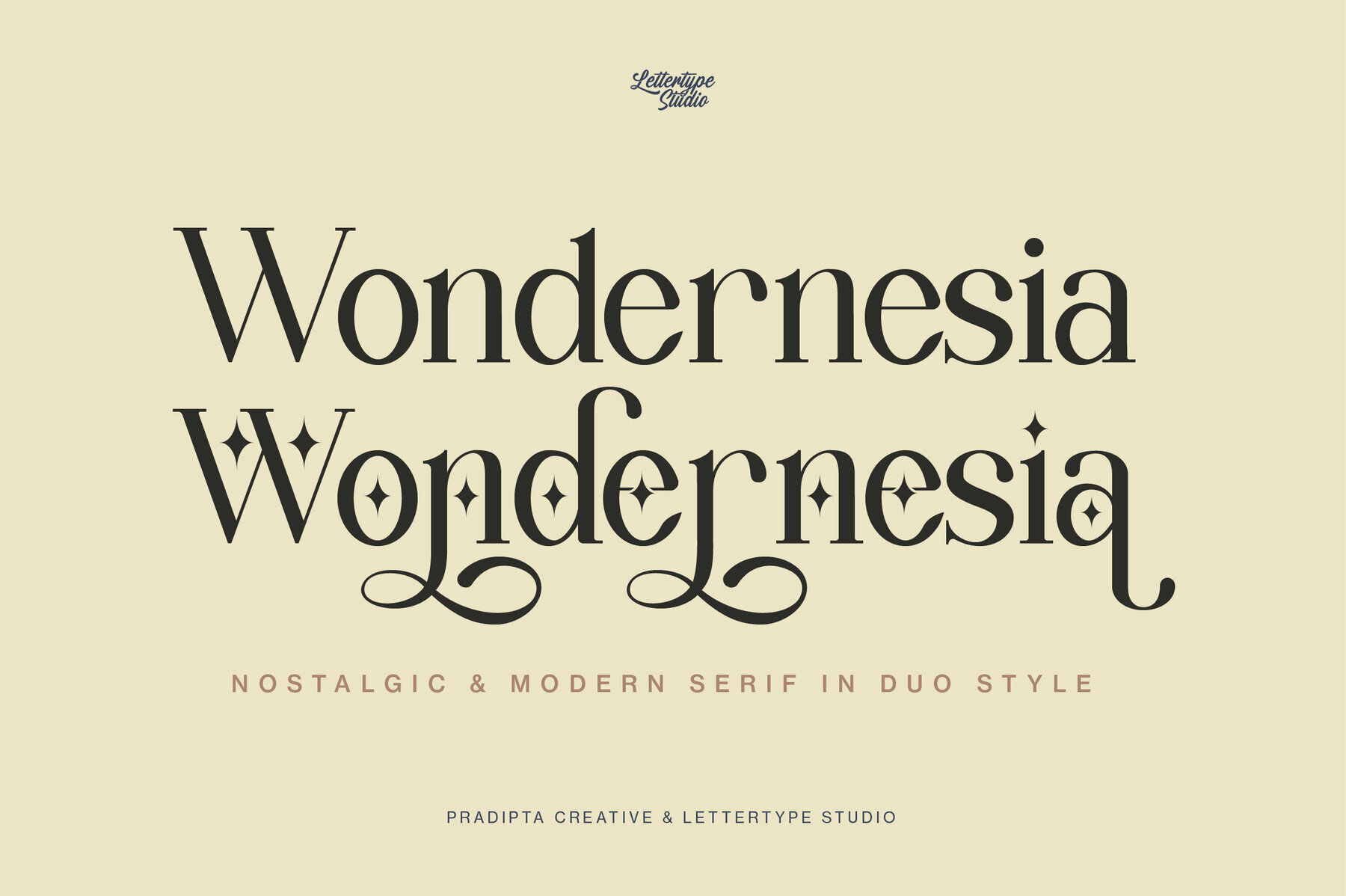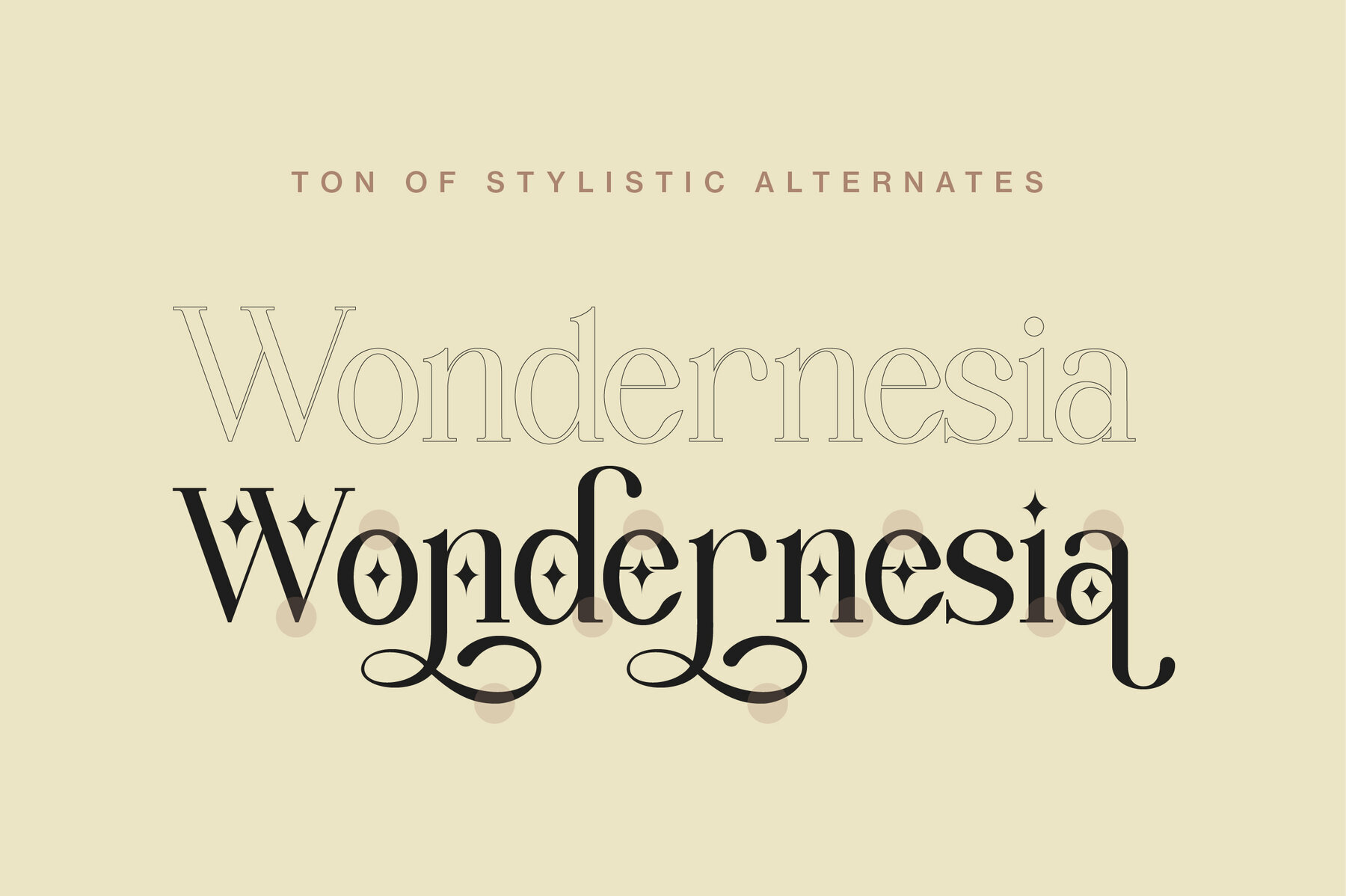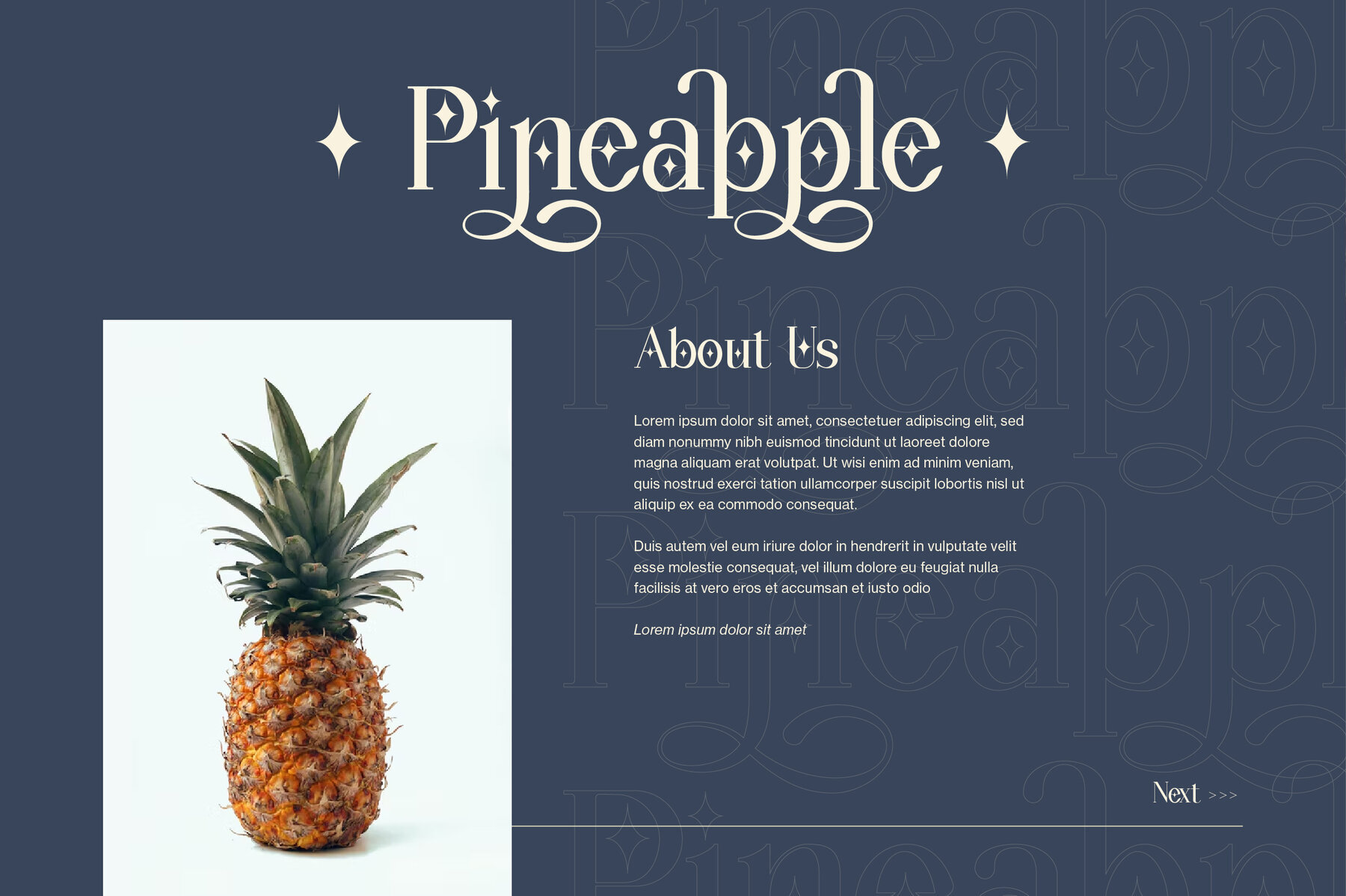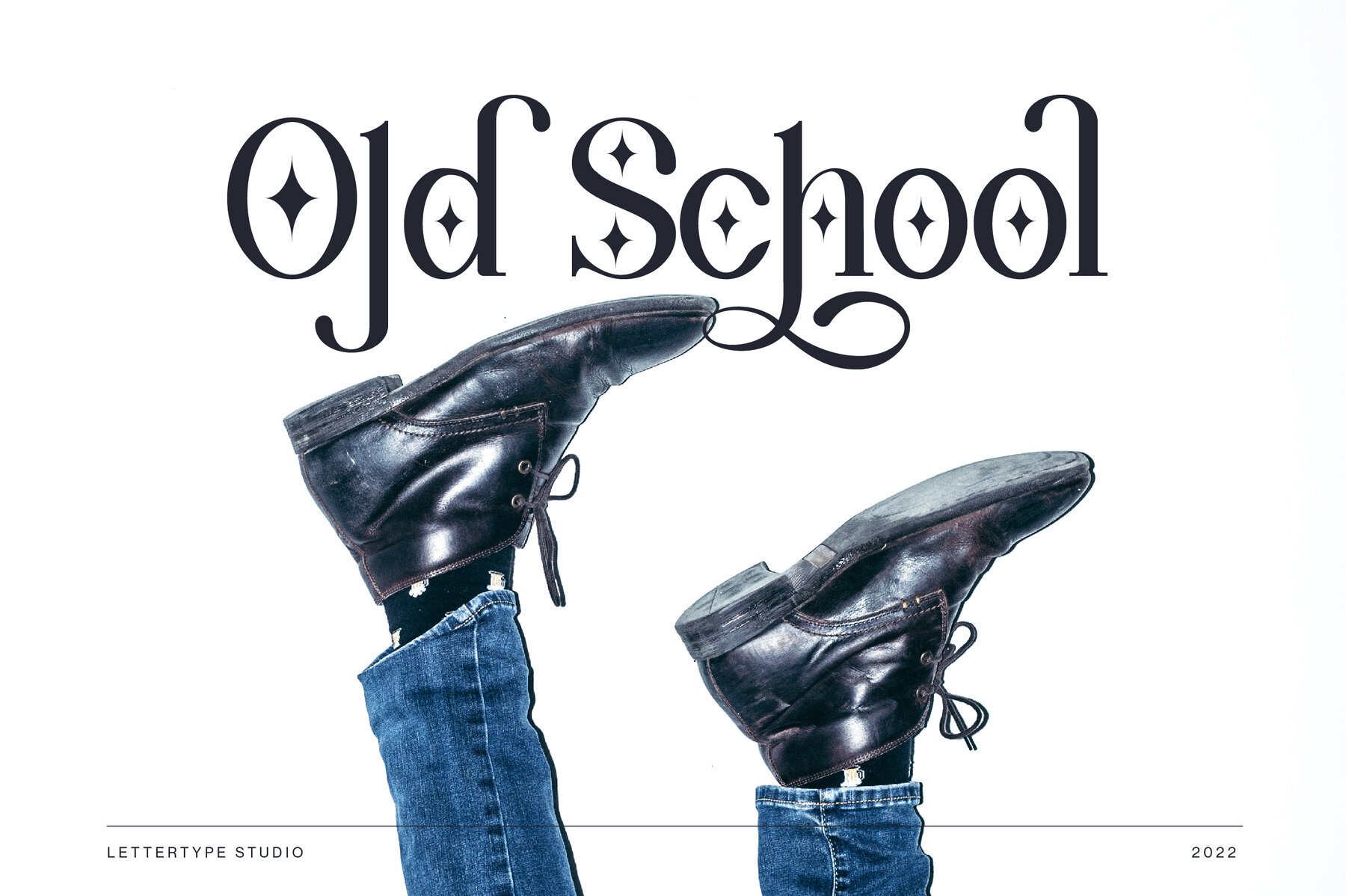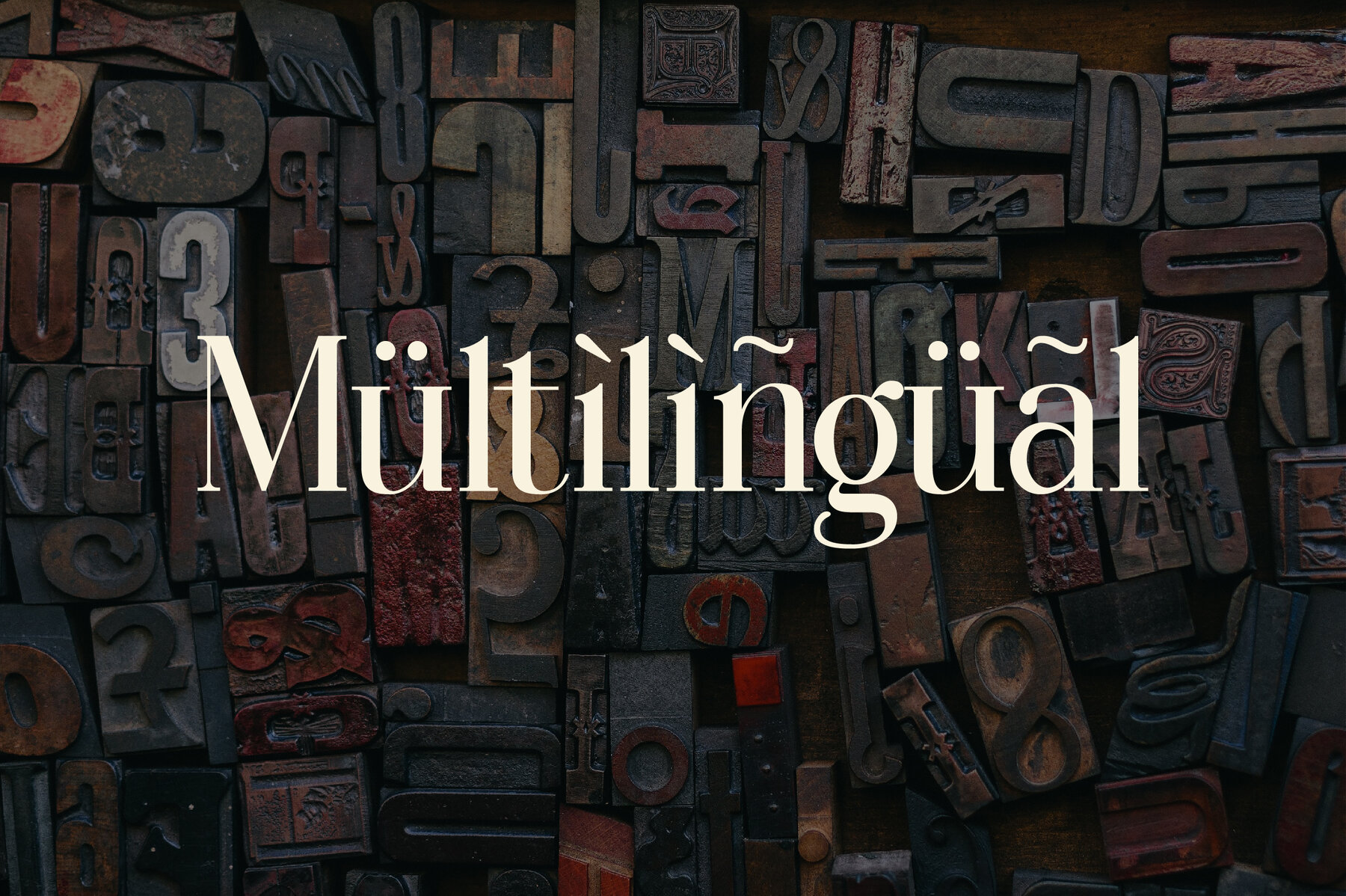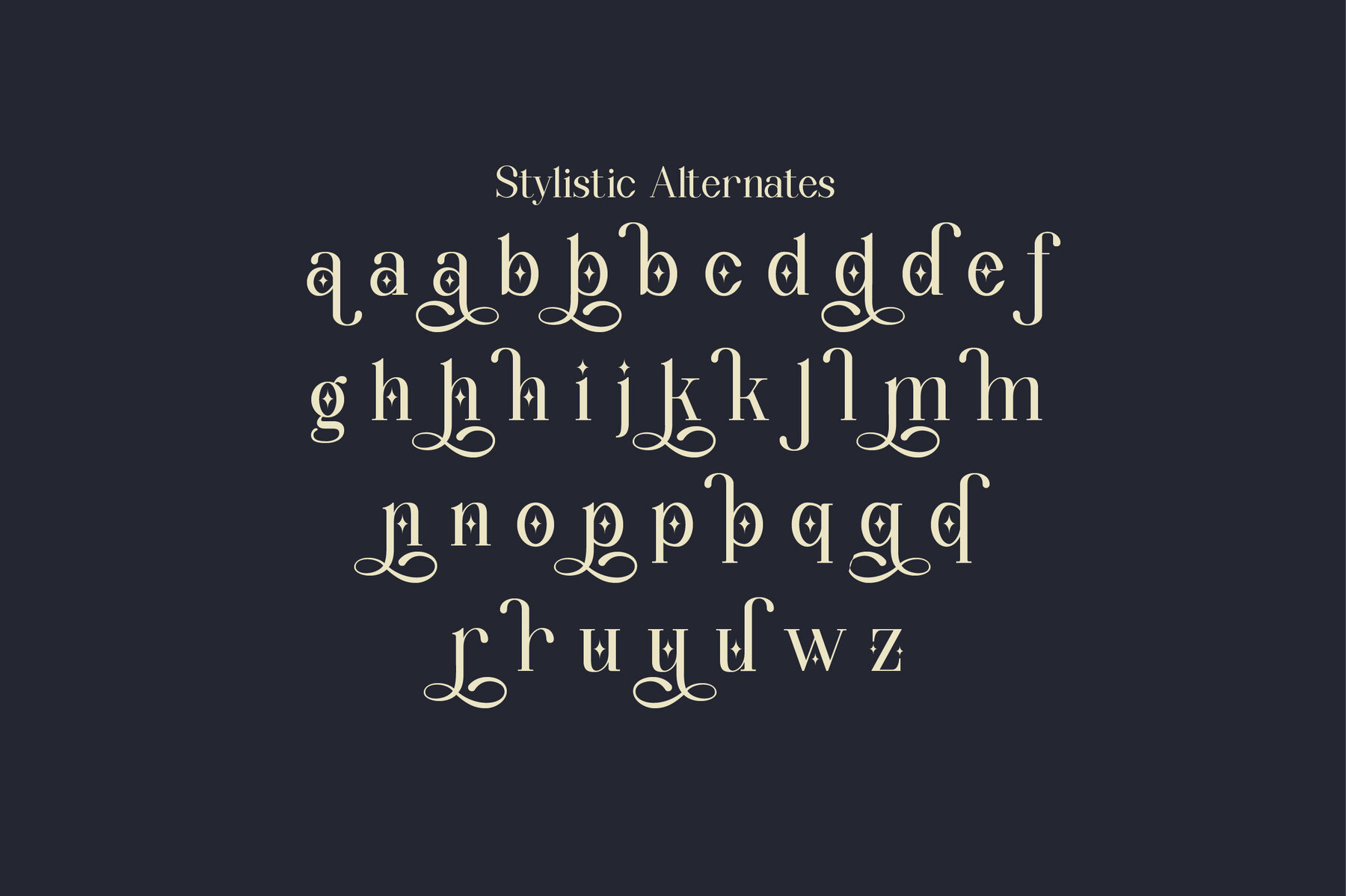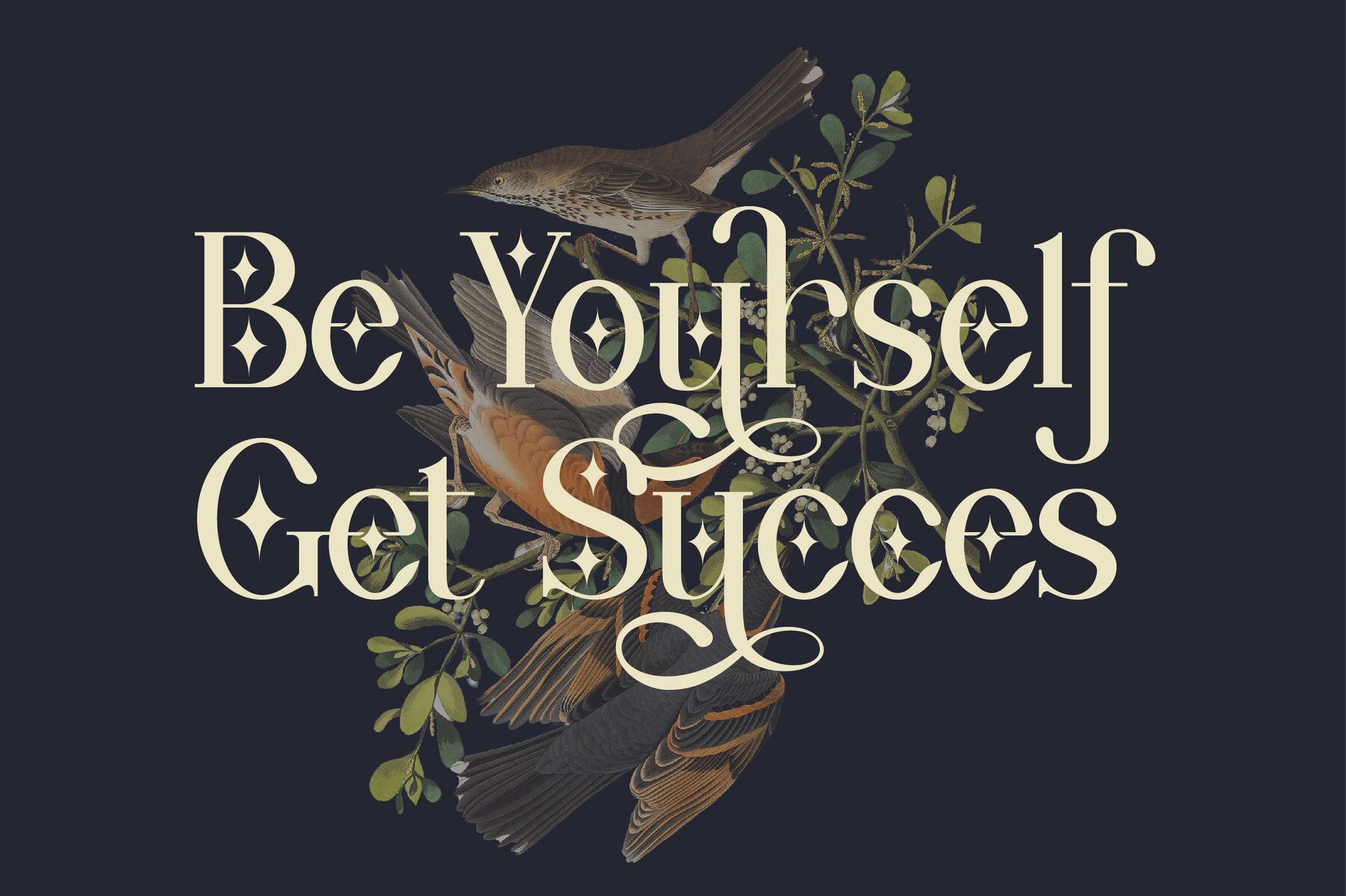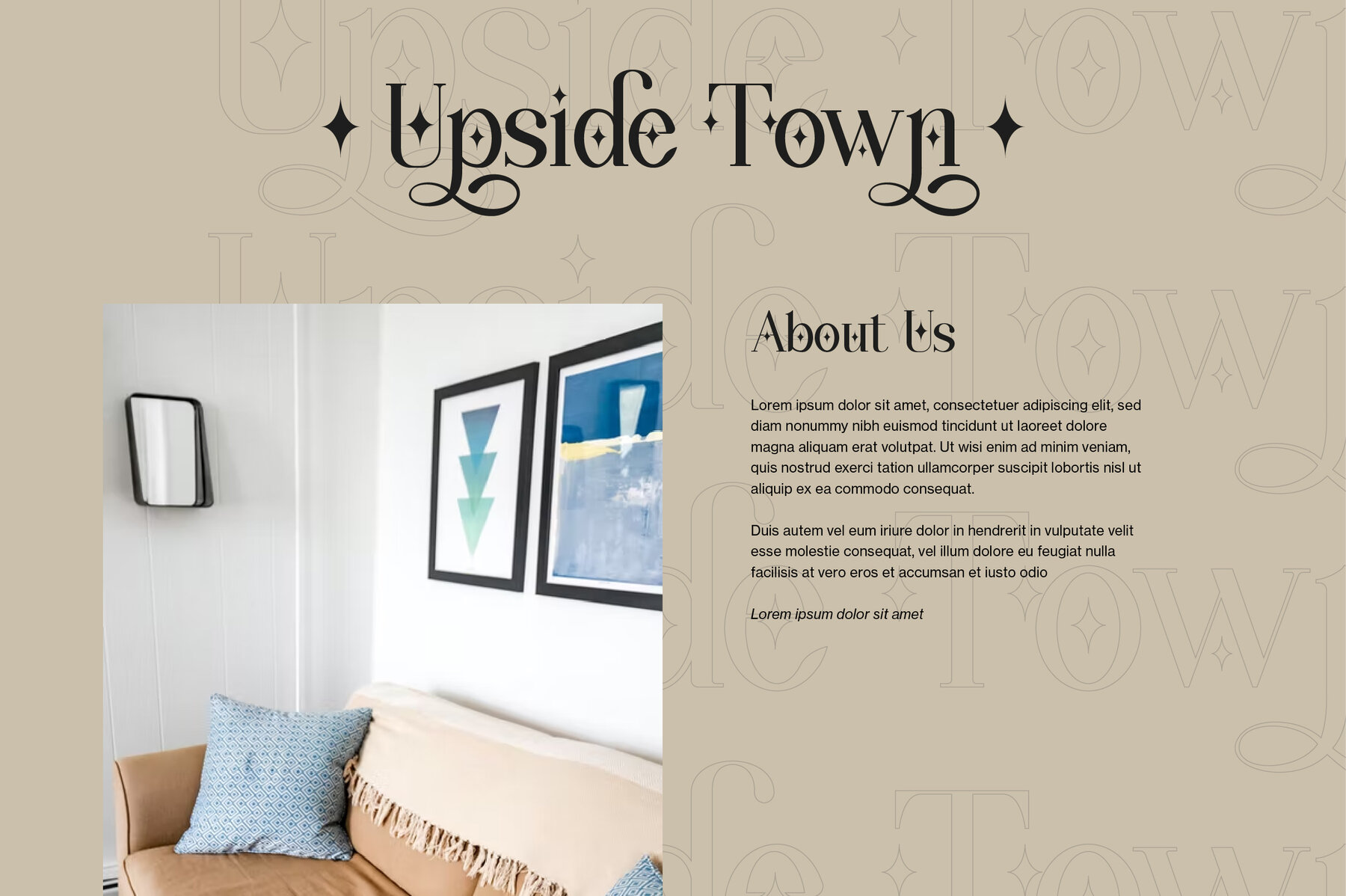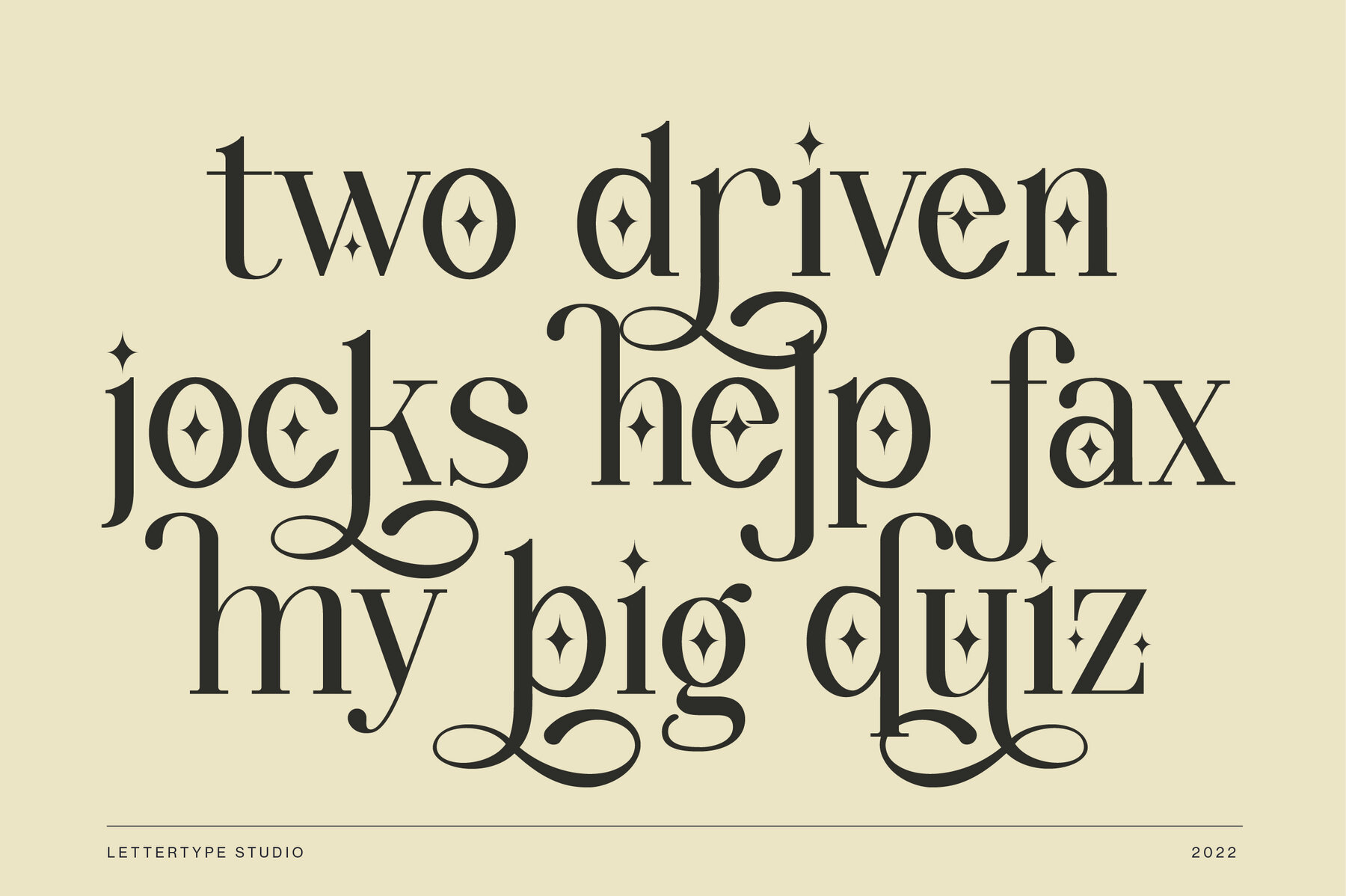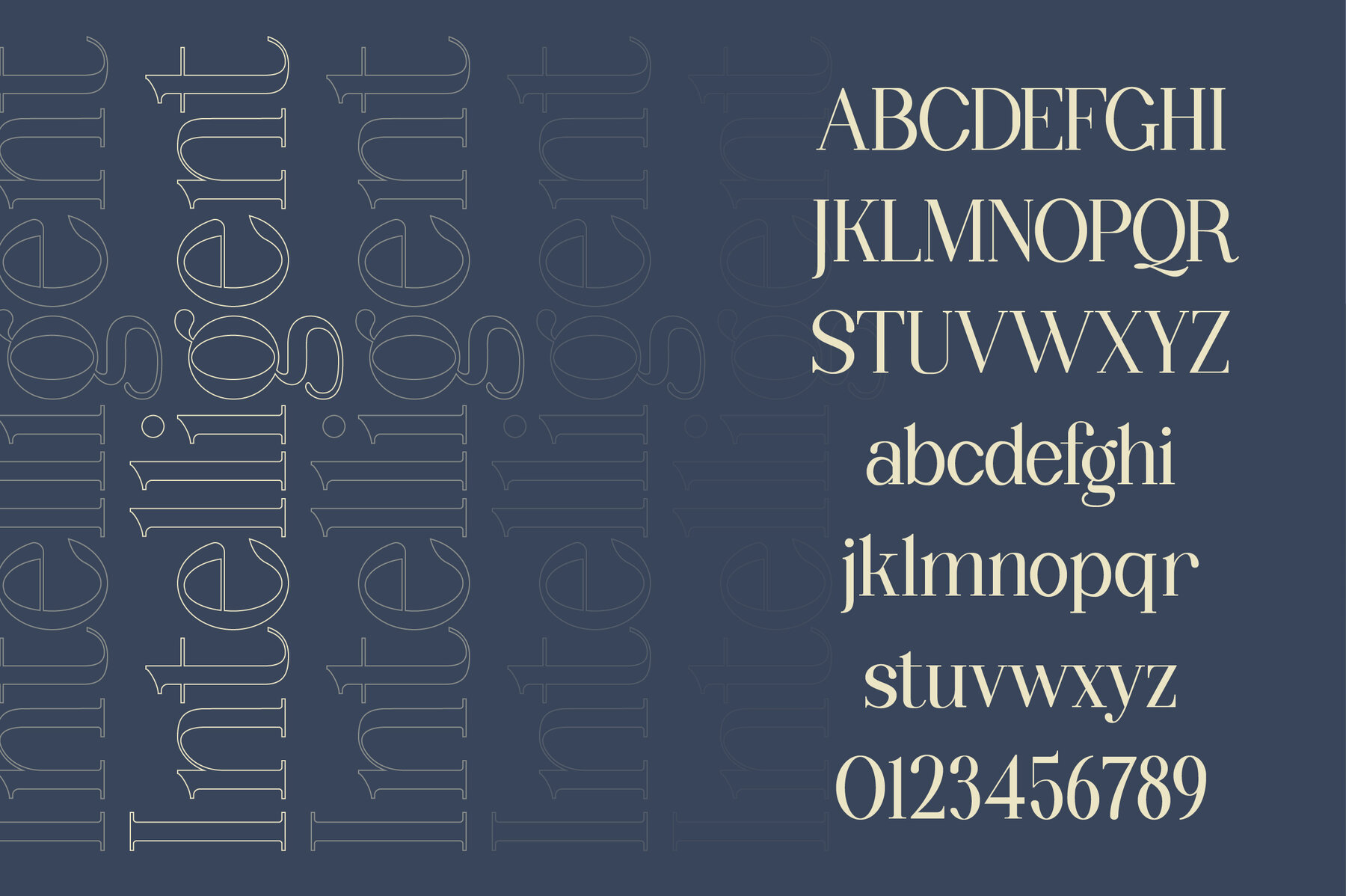
Wondernesia Font
Wondernesia Regular
Discover the charm of Wondernesia, a serif duo font that skillfully blends nostalgic 80s and 90s vibes with a modern touch. Designed to evoke the rich cultural heritage and breathtaking beauty of Indonesia, Wondernesia is perfect for your creative projects. Whether you're crafting logos, branding materials, clothing designs, signage, posters, or wedding invitations, this versatile font adds a touch of elegance with both retro and contemporary flair. Create stunning visual experiences with Wondernesia, a font that captures the spirit of nostalgia along with a modern edge. Ideal for a wide variety of applications, it is sure to leave a memorable impression.Wondernesia Serif Duo Font
Features of Wondernesia